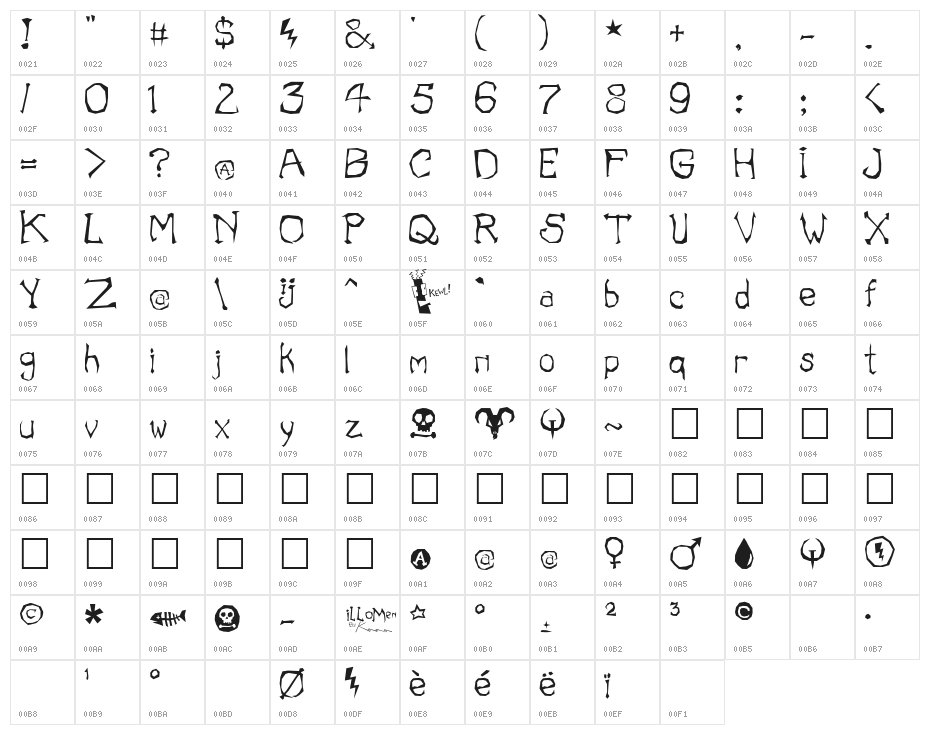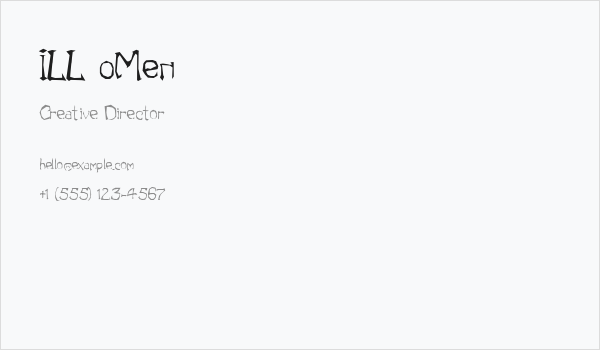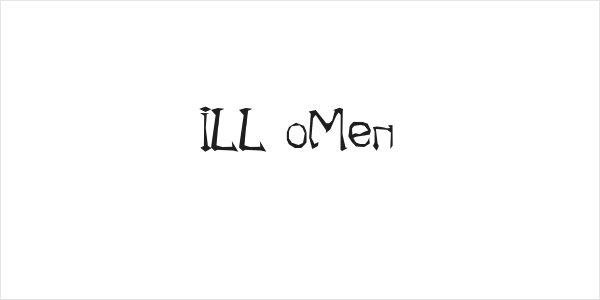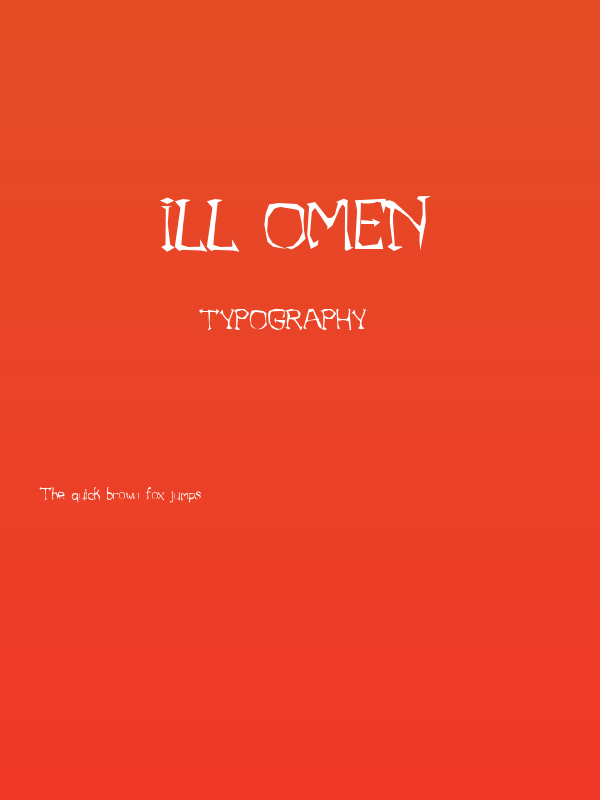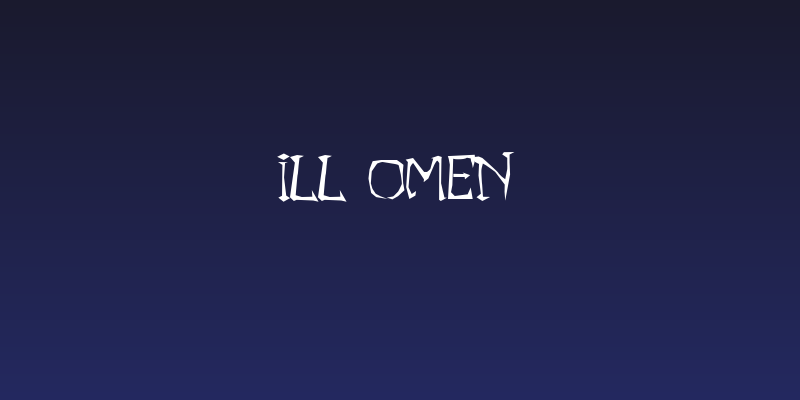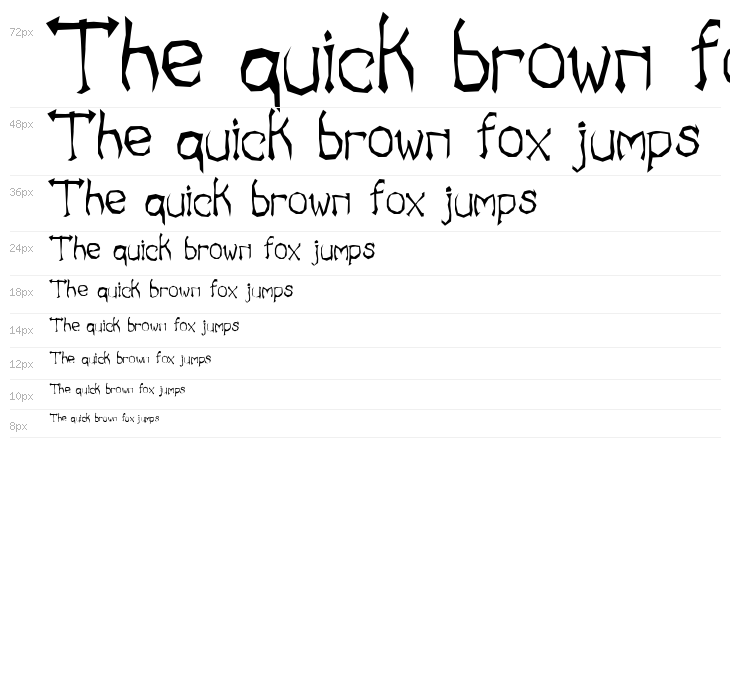
ILL oMen Font
ILL oMen Description
This font features a jagged, edgy design that evokes a sense of mystery and intrigue. The characters are irregular and sharp, with an almost hand-drawn appearance that adds a unique personality to the text. The uppercase and lowercase letters maintain a consistent style, with angular lines and pointed edges that create a dynamic visual impact. Numbers and special characters follow the same aesthetic, ensuring a cohesive look across all text elements. This font's distinctive style makes it ideal for projects that require a bold, unconventional typeface.
| Proposed Projects | Ideal for horror-themed posters, album covers, video game titles, and edgy branding projects. |